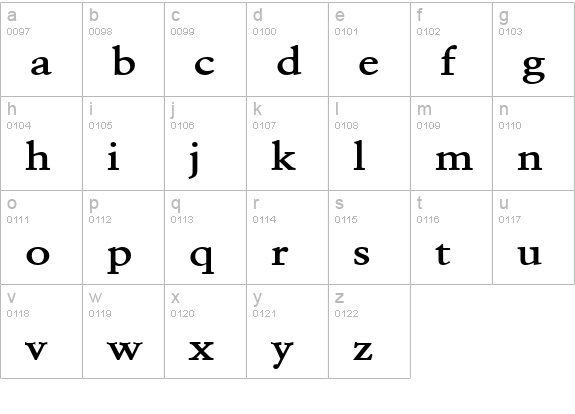
Garrick Wide Bold Font Details
Garrick Wide Bold is a strong, high-contrast, extended-width variant in the Garrick typeface family \xE2\x80\x94 well suited to headlines, attention-grabbing titles, and strong calls-to-action.
Garrick Wide Bold font is a striking and bold typeface designed to make a statement. With its wide letterforms and thick strokes, it exudes strength and confidence, making it perfect for headlines, posters, and branding projects. The font's clean and modern design ensures readability while still commanding attention. What sets Garrick Wide Bold font apart is that it is available for free download at FontsMarket.com. This means you can easily access and use this versatile typeface in your projects without any cost. Embrace the boldness of Garrick Wide Bold font to elevate your designs and make a lasting impression.